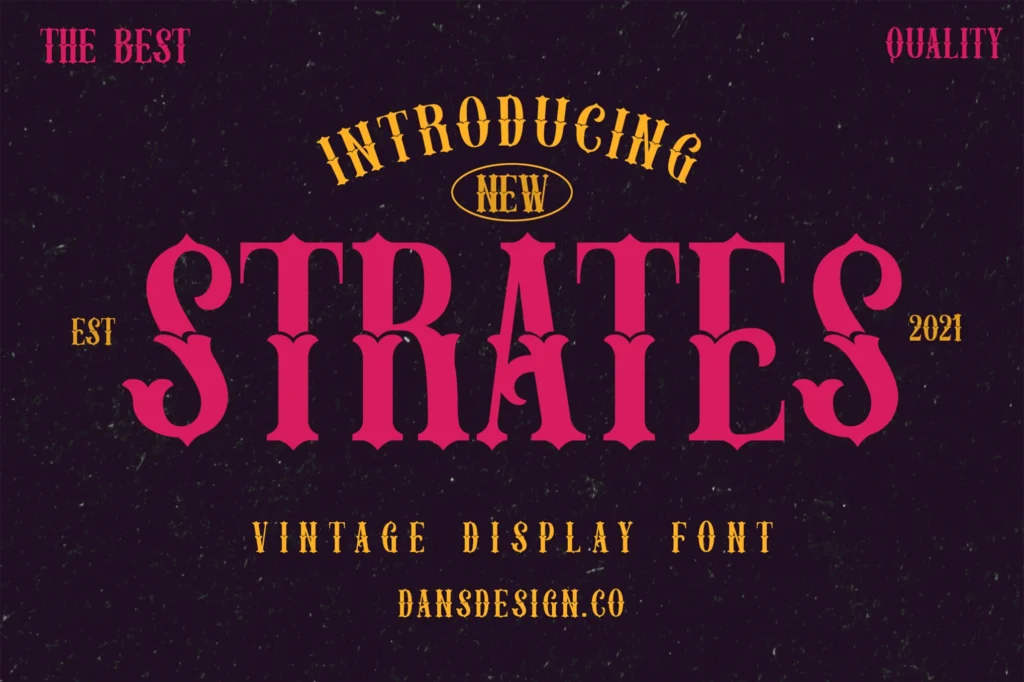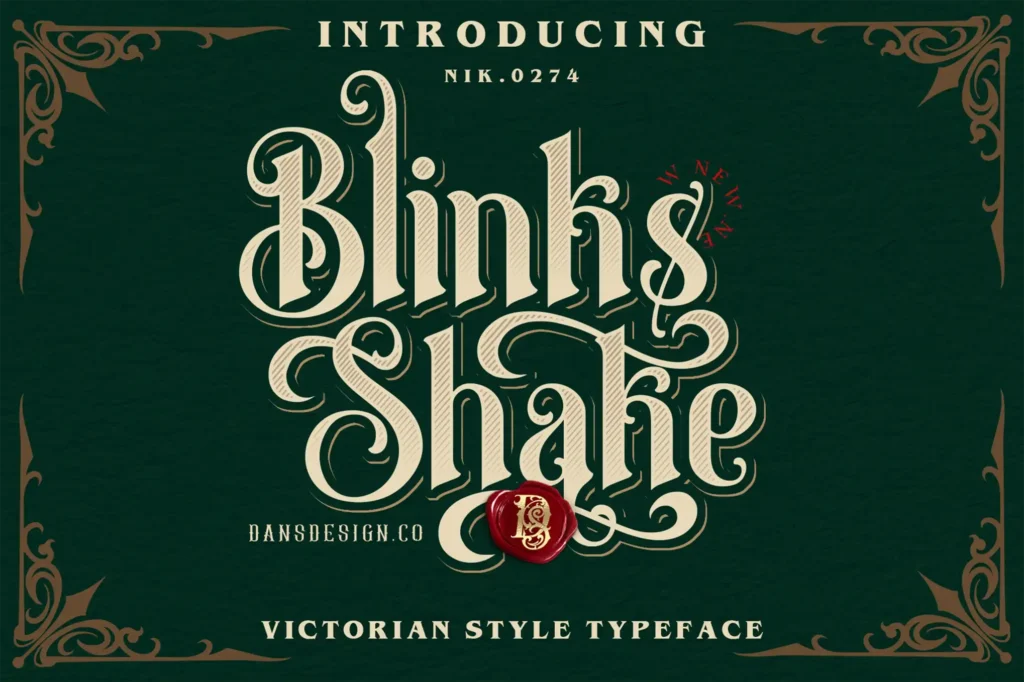
Top 20 Tattoo Fonts for Every Style: Find Your Perfect Match
Choosing the right font for a tattoo is just as important as deciding the tattoo’s message and placement. Tattoo fonts give the design its voice – whether it’s romantic, bold, mysterious or minimalist. Fonts can dramatically affect how people perceive your tattoo, especially when it comes to lettering, quotes or name tattoos. Just like in tattoo design, fonts play an important role in branding too. Whether it’s for a logo, slogan or marketing material, the right font can help establish a brand’s identity, making it memorable and impactful.
With so many styles of tattoo font available, from cursive and script fonts to classic blackletter or clean minimalist ones, it’s important to choose a font that looks good, remains legible over time and is to your liking. In this guide, I’ll help you find the best font from the many styles and give pro tips to ensure your tattoo font matches your personality and looks great over time – while also noting how the same principles can be applied to branding design.
Benefits of Choosing the Right Font
The right font not only conveys meaning but can also affect the tattoo’s longevity and readability over time. Factors such as ink density, line width, and placement play a role, and knowing which font styles best suit these factors can help a tattoo age gracefully.
• Improved Legibility: Fonts with simple, thick lines are easier to read and maintain clarity longer, especially when tattooed in small sizes or moving areas.
• Personalization and Impact: Each font brings unique flair, helping the tattoo reflect the wearer’s personality and the intention behind the design. A well-chosen font ensures that the tattoo feels personal, meaningful, and expressive.
• Enhanced Aesthetic Appeal: Matching the font style to the tattoo’s theme or symbolism increases its visual appeal and emotional resonance. For example, a gothic font may not be suitable for a delicate name tattoo as well as a cursive style, while a strong blackletter font is appropriate for a large, statement tattoo intended to grab attention.
Top 20 Tattoo Fonts for Every Style
Explore our expertly curated list of the top 20 tattoo fonts, designed to complement every tattoo style. Whether you’re aiming for bold, intricate, or minimalistic designs, these fonts are perfect for making your ink truly unique.
1. Strates Vintage Tattoo Font by Dansdesign
strates vintage tattoo fonts
STRATES is a bold, vintage-style font with a touch of old-school charisma, ideal for making a strong impact. It has thick, block-like lettering, which maintains clarity even when tattooed on large areas, such as the chest or back. Its vintage feel suits it particularly for themes that require a nostalgic look, giving the tattoo a timeless presence. This font’s sturdy strokes offer great longevity on the skin, as the lines are thick enough to resist blurring over time—a common concern with tattoos. STRATES is also versatile for branding purposes, easily adapting to logos, product packaging, and apparel.
2. Blinks Shake by Dansdesign
Blinks Shake
Blinks Shake is full of personality, with a dynamic and freeform structure that brings energy and movement to the skin. It’s an expressive choice for tattoos, especially for those who want a less structured, more artistic appearance. Its playful, varied line weights create a unique texture, making it perfect for forearm or wrist tattoos that benefit from an informal style. This font’s carefree vibe suits designs that convey personality or fun without the strict confines of traditional tattoo fonts, ideal for users who want an approachable and vibrant look.
3. Black Angela – Tattoo Font by Blankids
Black Angela - Tattoo Font
Black Angela blends a traditional tattoo font’s boldness with a modern touch, making it versatile for contemporary tattooing styles. With its thick, solid lines and classic shape, Black Angela reads easily and holds well over time, even on textured skin. This font is frequently used for barbershop branding and tattoo merchandise due to its strong, professional vibe. Its structured design is perfect for arm or chest tattoos that require a bit of edge and authenticity, while its durability also makes it suitable for tattoo letters that need to stay sharp over time.
4. Tattoo Beast by Dansdesign
Tattoo Beast font
Tattoo Beast lives up to its name with a beastly, powerful appearance that brings a vintage-inspired, larger-than-life quality to tattoo designs. This font is ideal for large tattoos with substantial space, like the back or chest, where its boldness can truly shine. Tattoo Beast is well-suited for body art and an excellent choice for product logos, packaging, and vintage designs. Its thick, steady strokes are designed for clear visibility and are likely to withstand the test of time, ensuring that the tattoo stays as vivid as the day it was applied.
5. NUMERO by Dansdesign
NUMERO tattoo font
NUMERO is a straightforward, minimalist font with a clean look that excels in simplicity. This font is great for small tattoo applications, such as numbers or initials on the wrist or neck, where readability is crucial. It has an elegant, no-frills design that makes it suitable for minimalistic tattoos and adds a sophisticated touch to branding and logo projects. Its uncomplicated appearance also means it holds up well on the skin, maintaining clarity with little risk of fading or distortion over time.